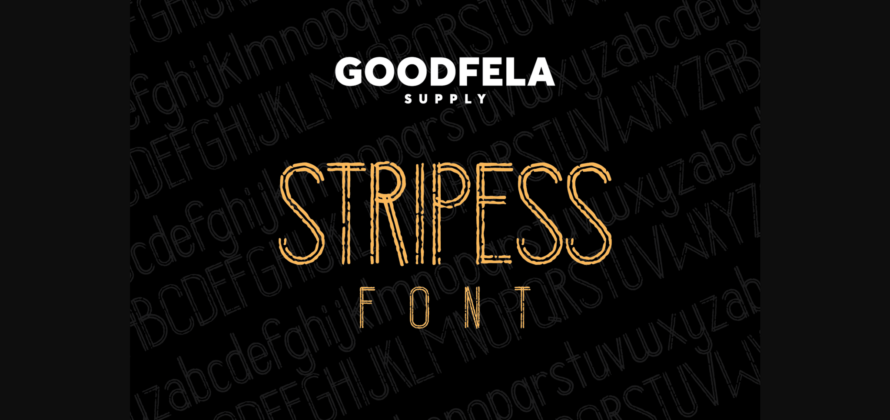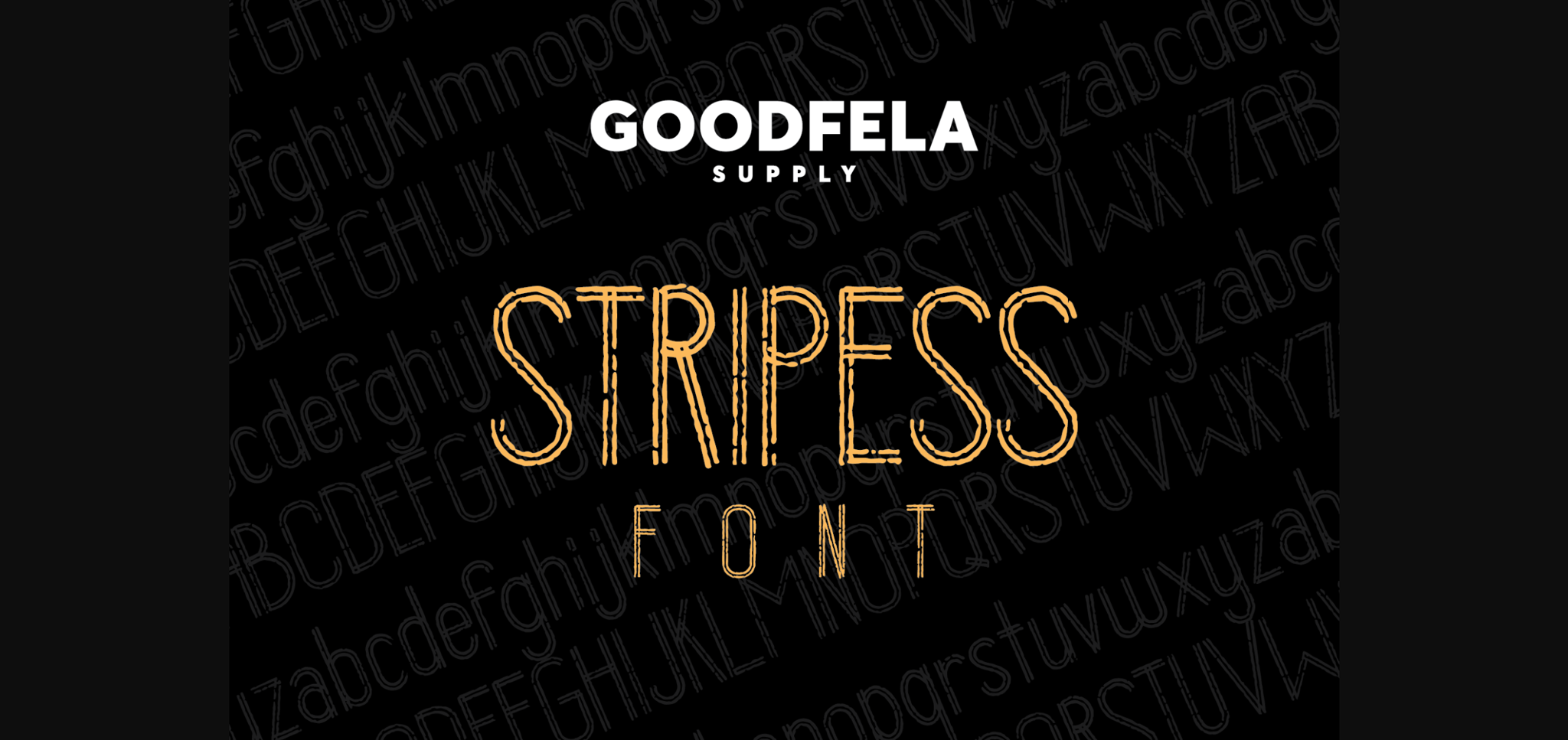
About Stripess Font
Stripess reimagines the classic sans serif style in an organic and fresh new way. It will deliver any text with confidence and charm.